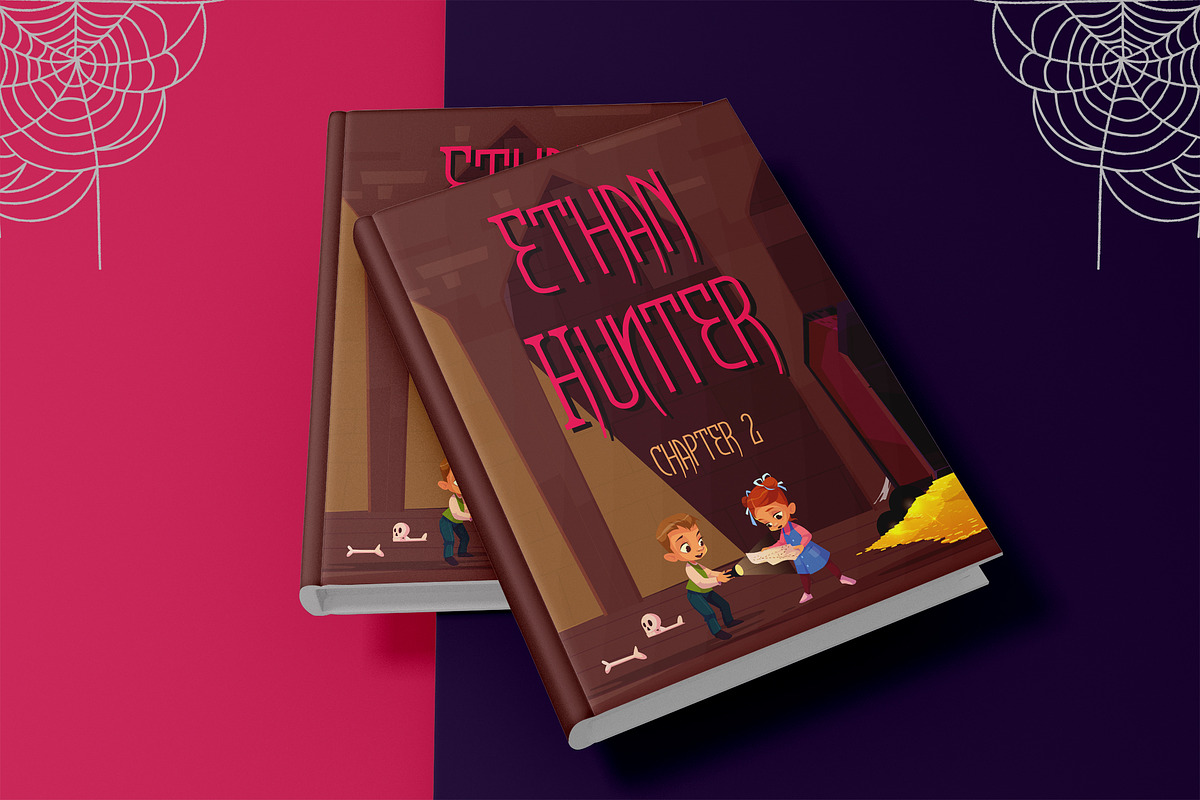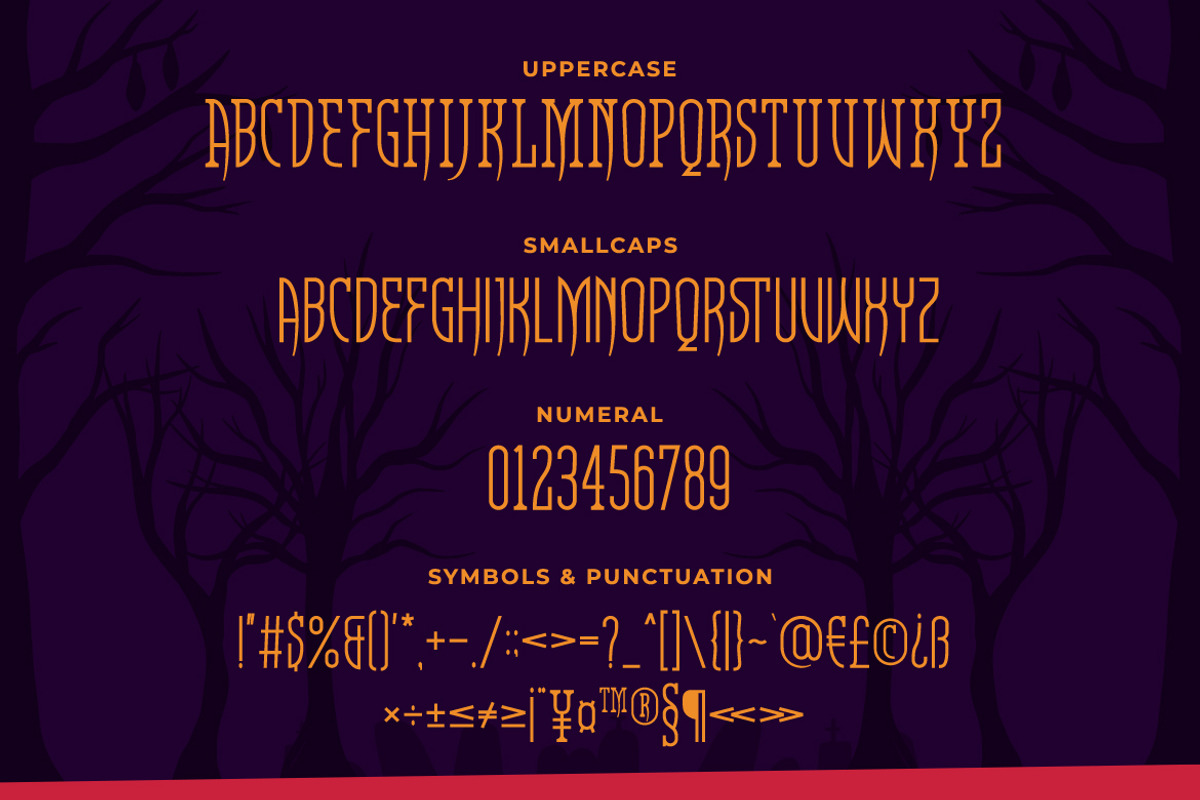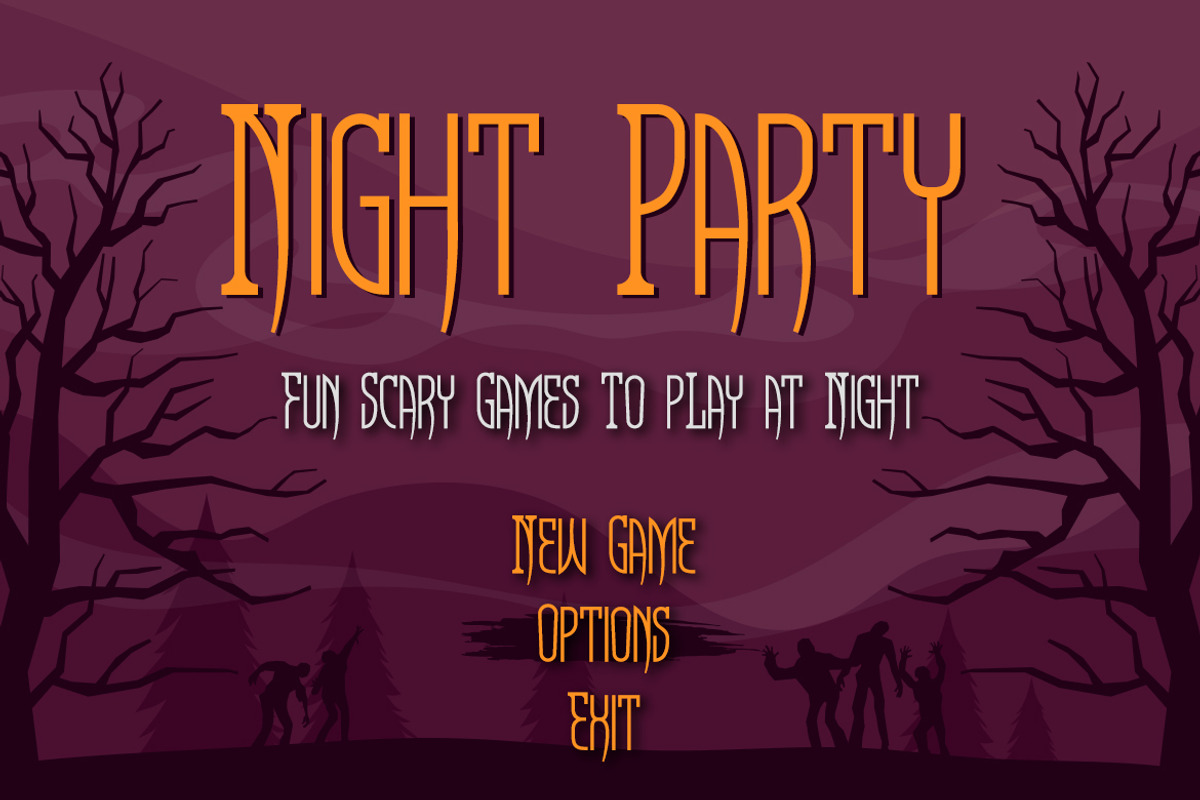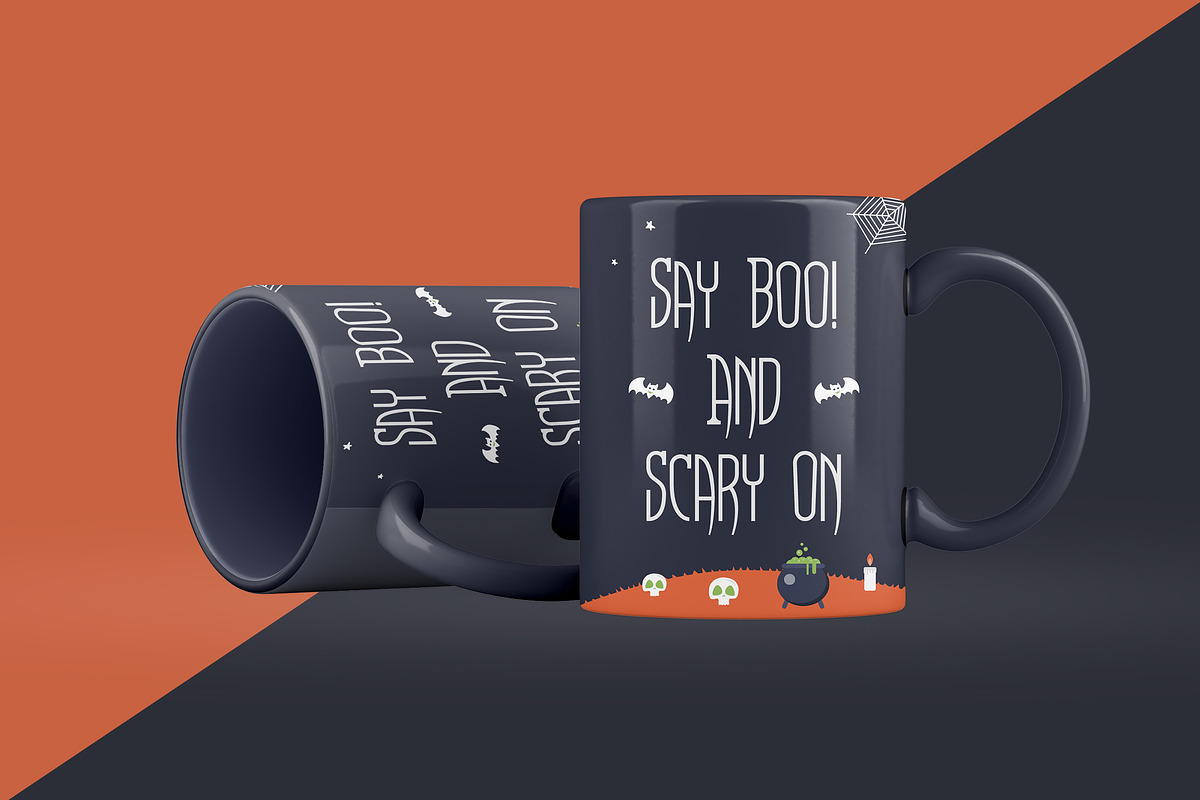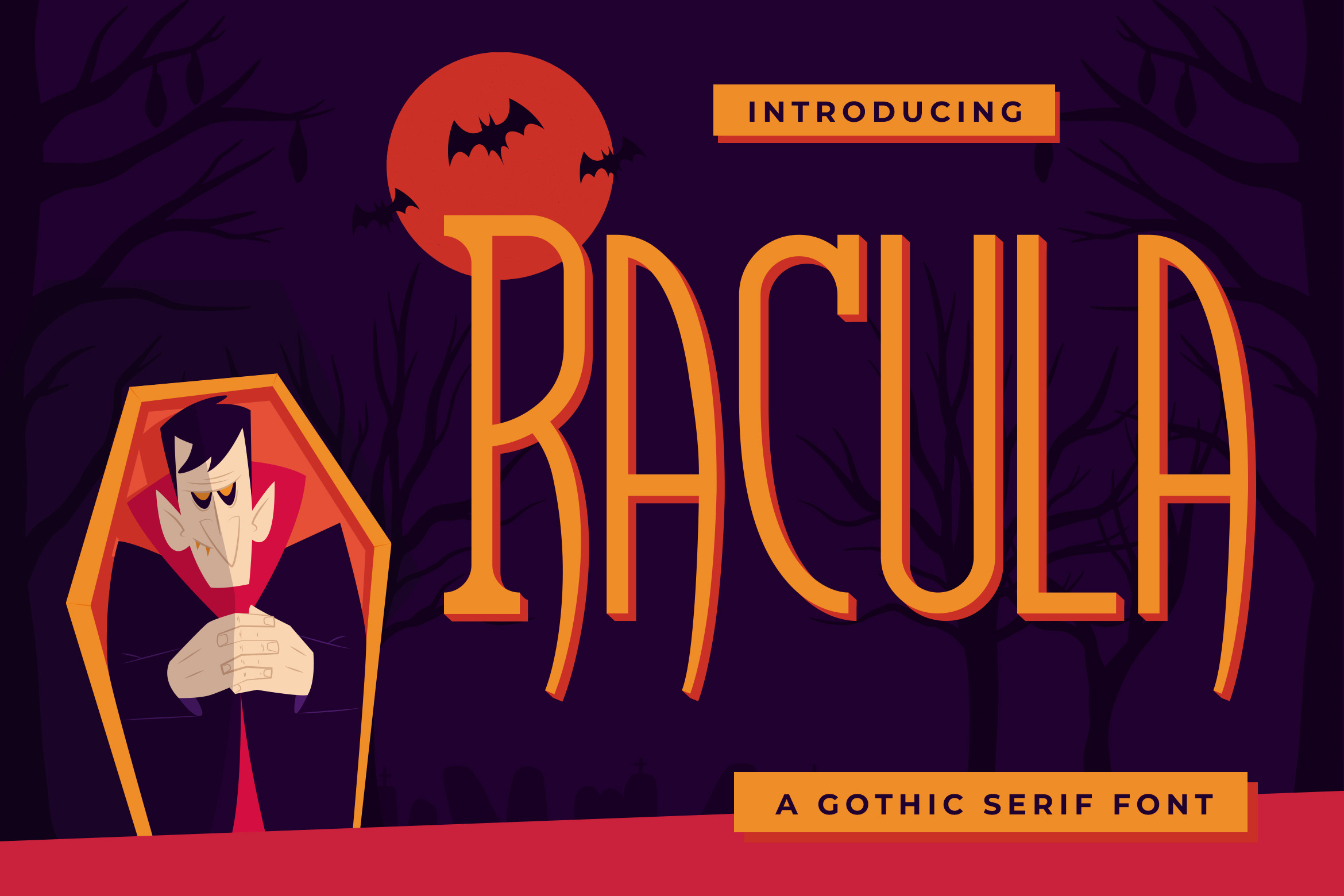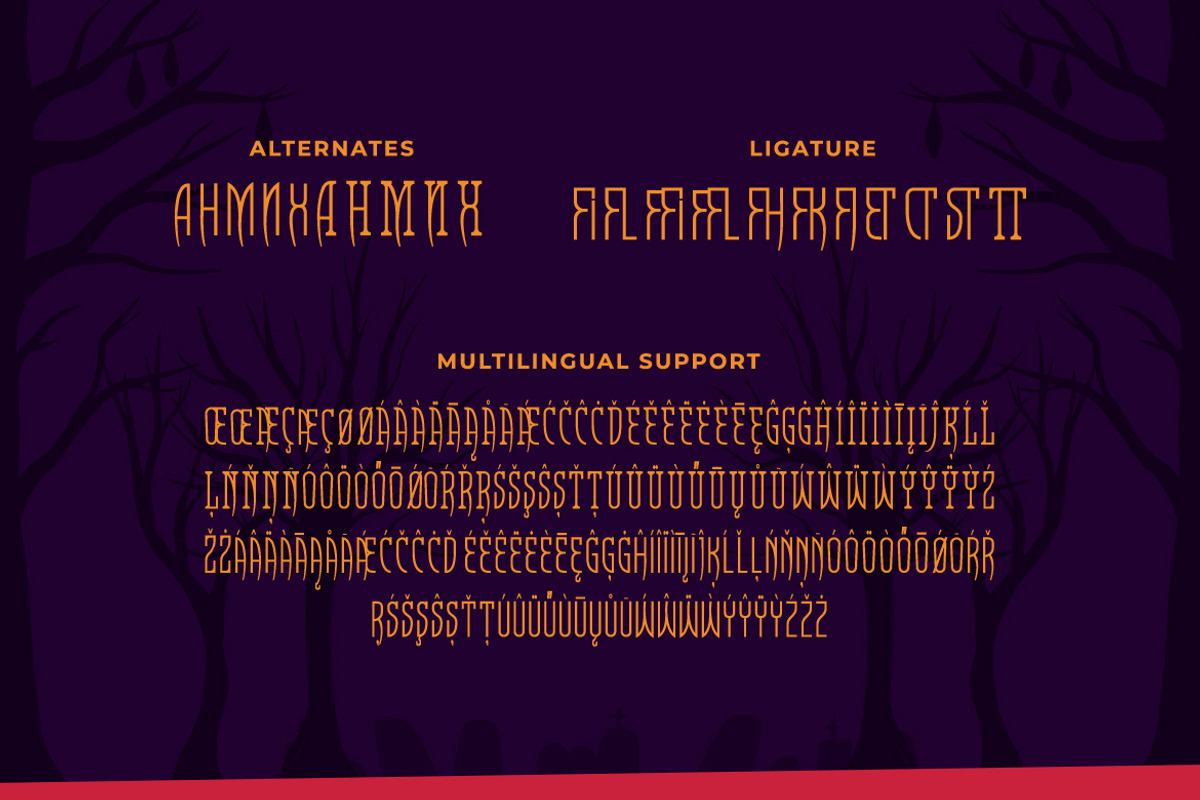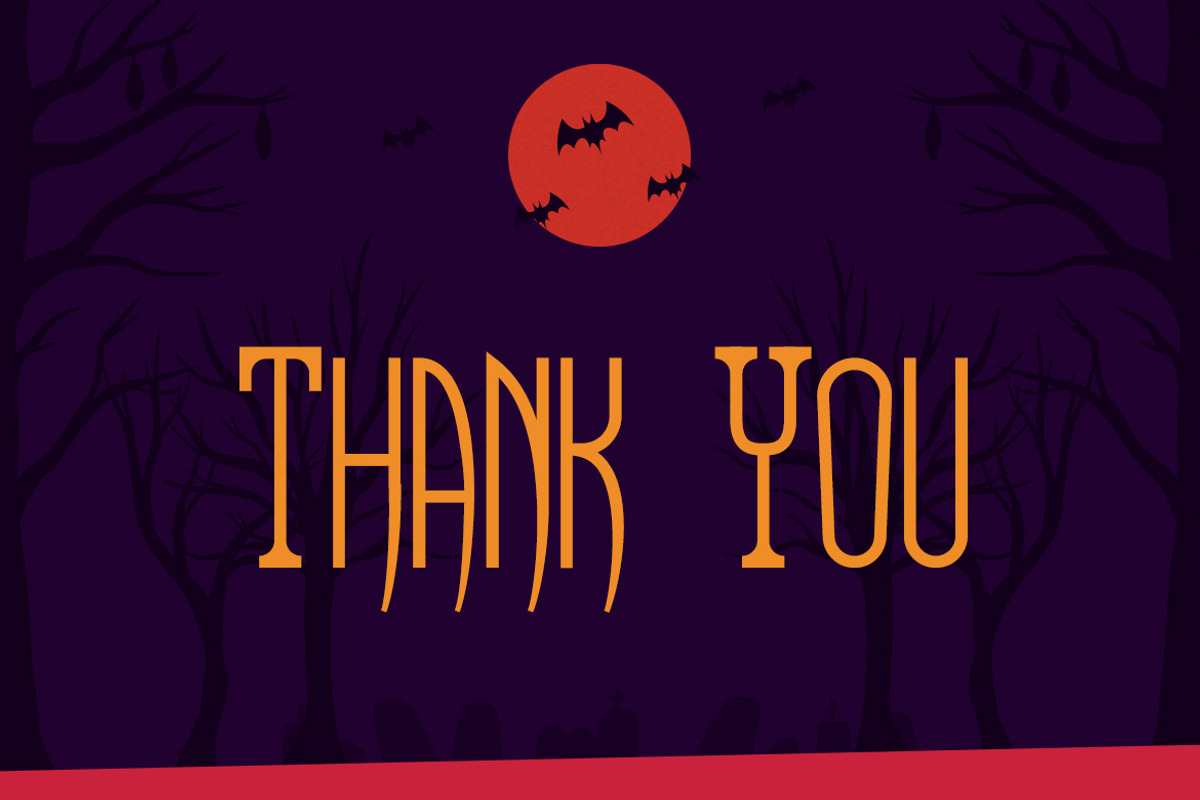
Racula - Gothic Serif Font
Racula is an fun, scary, and amazing gothic serif. It will add a unique and stunning look to your designs. It is perfect for fun scary games, children horror story book, logos, branding, advertising, Halloween projects, gothic designs, apparel, tattoos, and more!
- Smallcaps
- Symbols & Punctuation
- Numeral